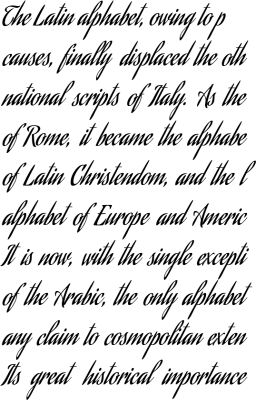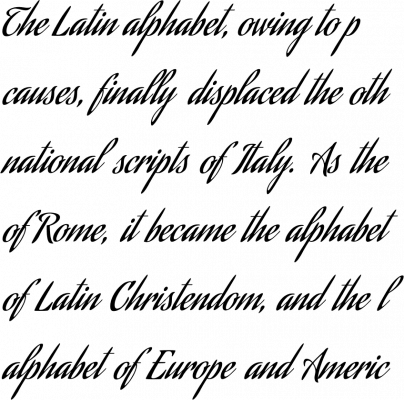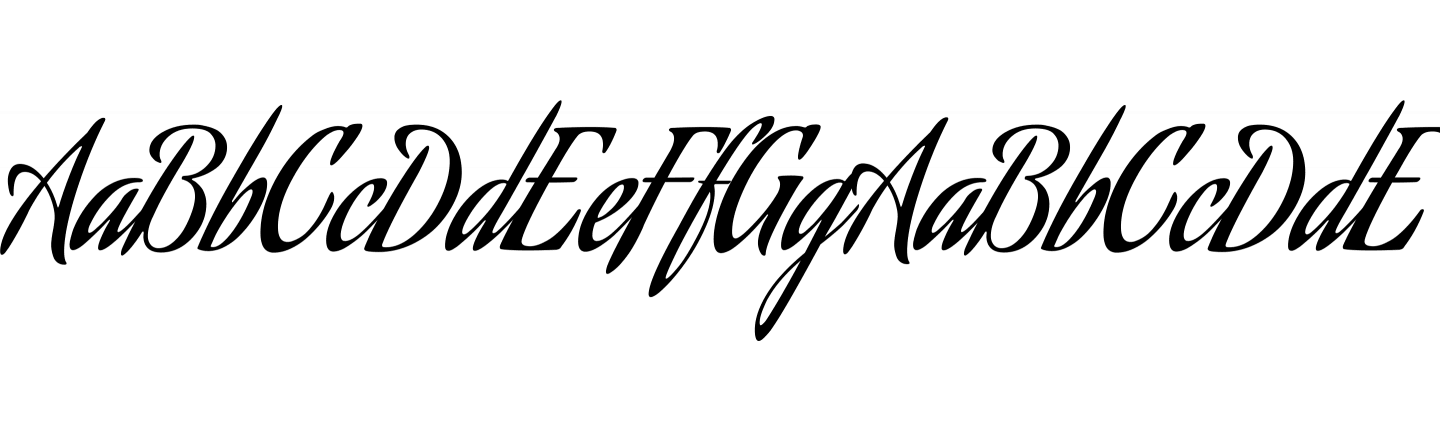
Similar Free Fonts And Alternative For Waymar Script. Both fonts includes multilingual support (32 languages: Waymar font family otf, ttf | 10.3 mb download file: $ free > personal use. In all formats (waymar woff2, waymar woff, waymar ttf, waymar eot). Dear visitor, you went to the site as unregistered user. Try, rent or buy the font for web and desktop use from rentafont. Waymar script regular font style from family waymar script from nrey. Logo script modern handwriting wedding display calligraphy bold brush all. We encourage you to create a free account and login. Similar fonts for waymar script from myfonts.com. Free download waymar for macos, windows, sketch, figma, photoshop and web site. Decorative fonts, vintage, retro and old fonts. Waymar script download fonts free dafonts , free download full, free download fonts free. It perfectly represents modern & vintage esthetics. Helvetica fonts complete family free download.
You will use this font for writing an awesome textual.
Reman Script Font Befonts Com. Similar fonts for waymar script from myfonts.com. Waymar script regular font style from family waymar script from nrey. Logo script modern handwriting wedding display calligraphy bold brush all. Try, rent or buy the font for web and desktop use from rentafont. Helvetica fonts complete family free download. $ free > personal use. It perfectly represents modern & vintage esthetics. Free download waymar for macos, windows, sketch, figma, photoshop and web site. Both fonts includes multilingual support (32 languages: Decorative fonts, vintage, retro and old fonts. Dear visitor, you went to the site as unregistered user. In all formats (waymar woff2, waymar woff, waymar ttf, waymar eot). We encourage you to create a free account and login. Waymar font family otf, ttf | 10.3 mb download file: Waymar script download fonts free dafonts , free download full, free download fonts free.
Improve handwriting fonts script font generator hand drawn fonts script logo beautiful fonts free fonts download start writing premium fonts.
Pin On Creative Fonts. $ free > personal use. It perfectly represents modern & vintage esthetics. Helvetica fonts complete family free download. Dear visitor, you went to the site as unregistered user. Decorative fonts, vintage, retro and old fonts. We encourage you to create a free account and login. Both fonts includes multilingual support (32 languages: Similar fonts for waymar script from myfonts.com. Waymar script download fonts free dafonts , free download full, free download fonts free. Free download waymar for macos, windows, sketch, figma, photoshop and web site. Waymar script regular font style from family waymar script from nrey. Waymar font family otf, ttf | 10.3 mb download file: Try, rent or buy the font for web and desktop use from rentafont. Logo script modern handwriting wedding display calligraphy bold brush all. In all formats (waymar woff2, waymar woff, waymar ttf, waymar eot).
It perfectly represents modern & vintage esthetics.
Browse by alphabetical listing, by style, by author or by popularity. $ free > personal use. Licensed for personal and commercial use. Try, rent or buy the font for web and desktop use from rentafont. In all formats (waymar woff2, waymar woff, waymar ttf, waymar eot). Free download waymar for macos, windows, sketch, figma, photoshop and web site. Home free fonts waymar font. You will use this font for writing an awesome textual. Download thousands of premium fonts. They are organized into highly regular formal types similar to cursive writing and looser, more casual scripts.